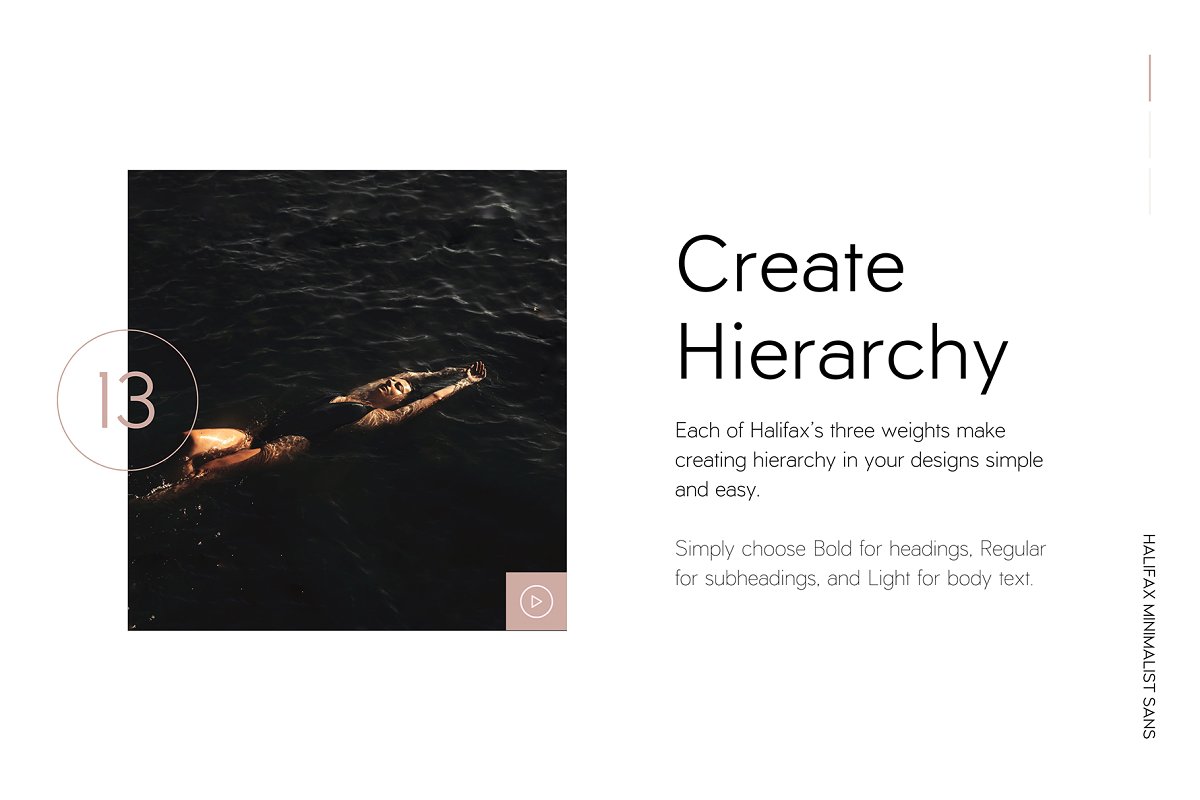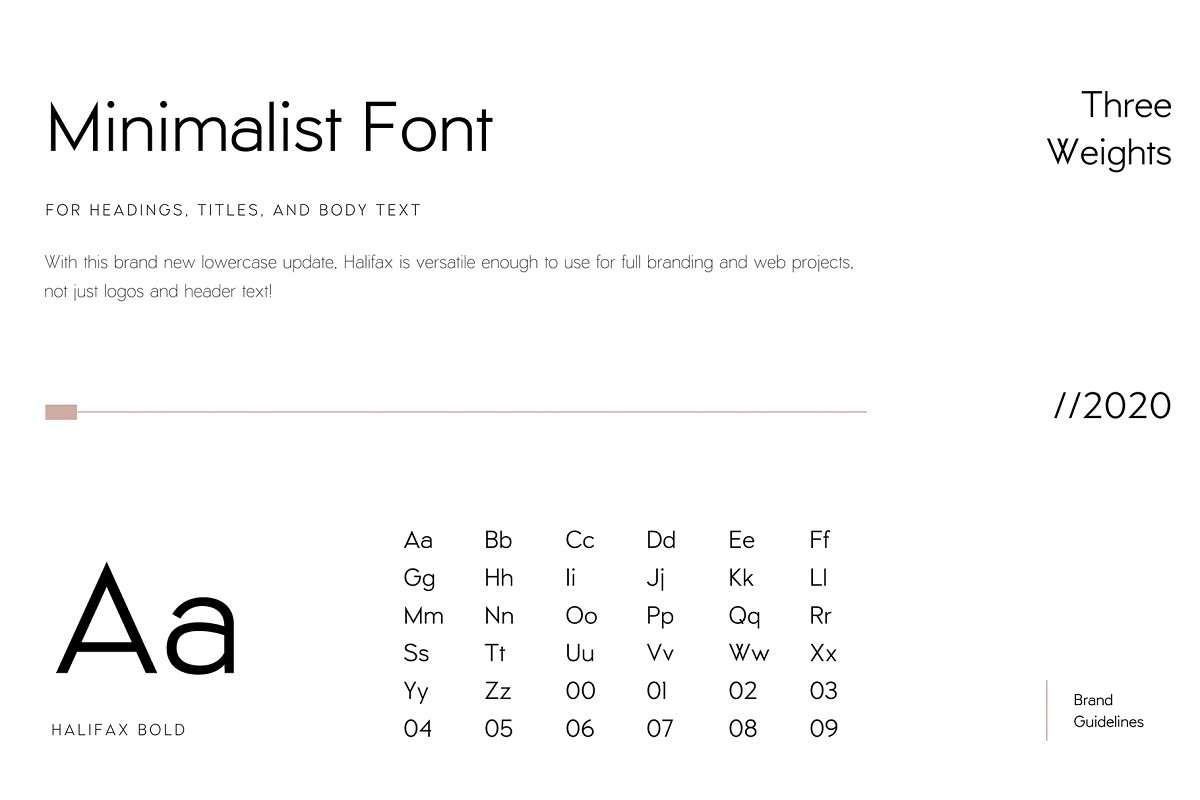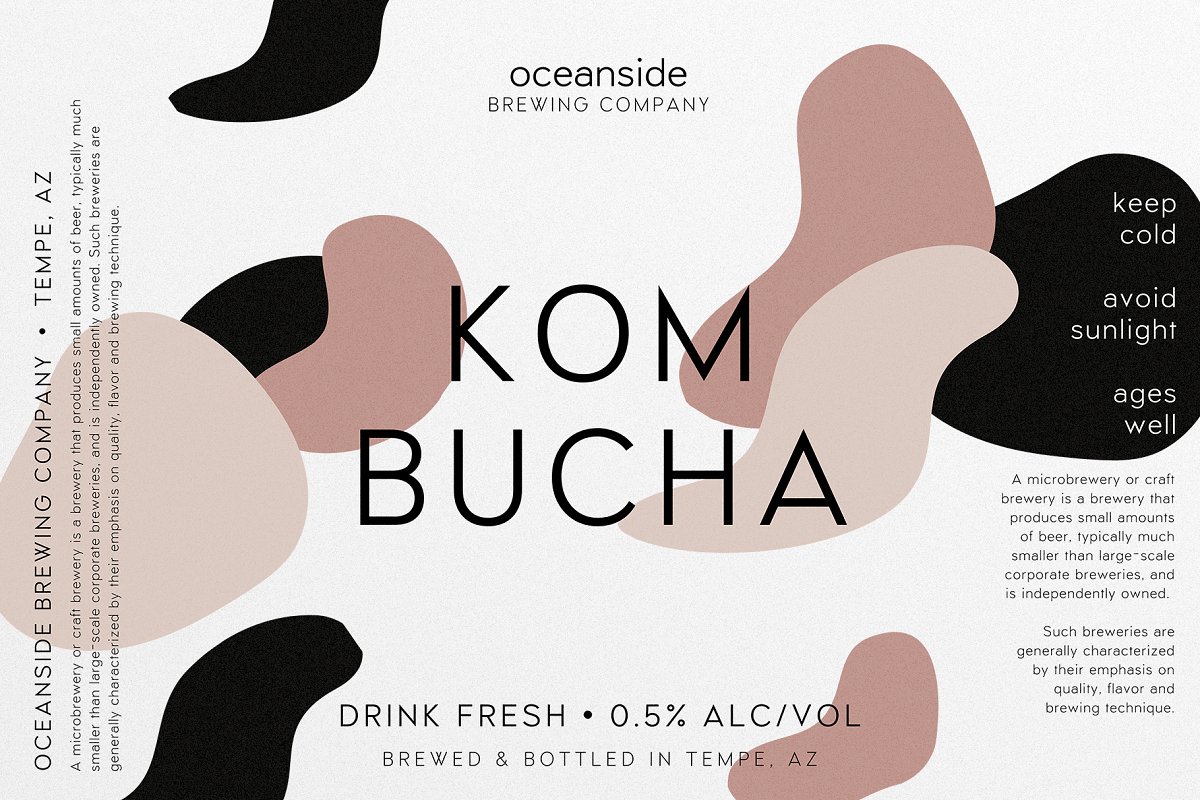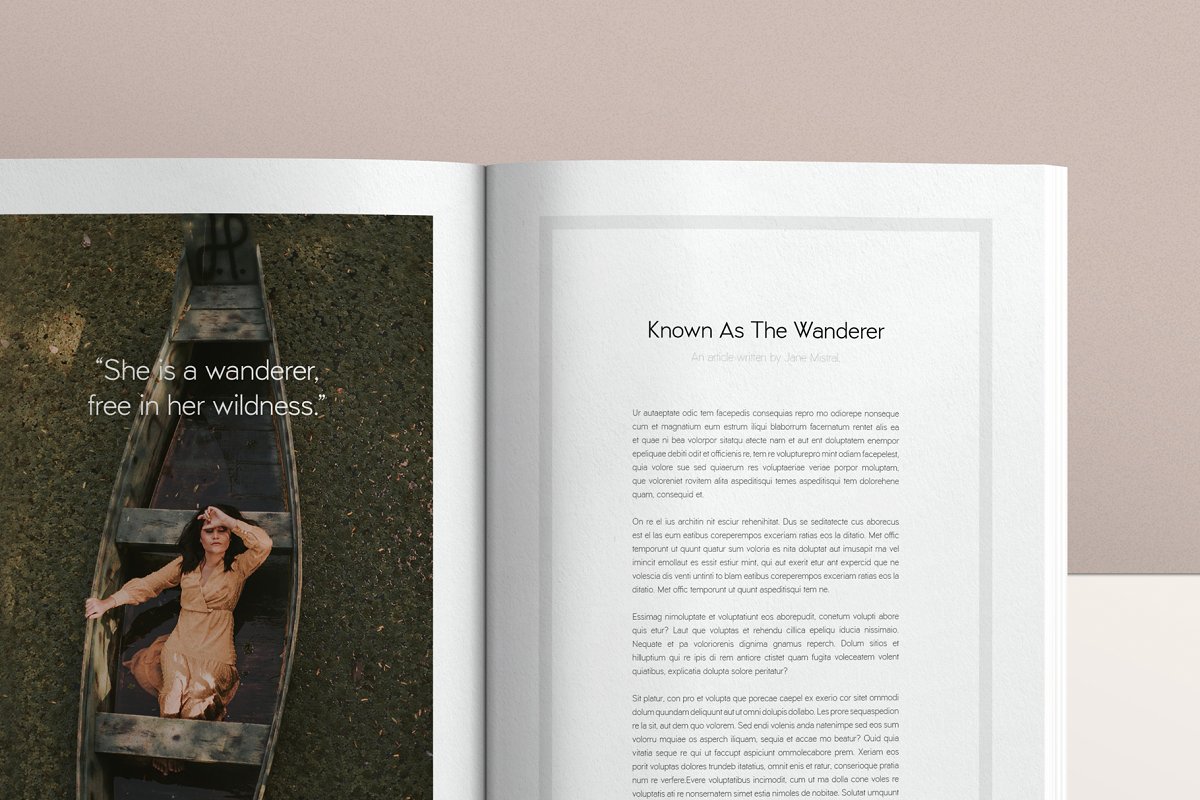
About the Halifax UPDATE A Minimalist Sans Font
NEW UPDATE: Now includes lowercase!Halifax is a minimalist sans serif that comes in three different weights – Thin, Regular, and Bold, Delicate and romantic, Halifax’s clean lines and sharp edges make it a perfect sans for weddings, logos, quotes, print, signage, and more! Plus, the different weights make it a stellar option for branding and web use
I really love this font with tracking set to 220, but it looks really beautiful with condensed spacing as well, Check out the sample images above to see what you can create with Halifax, and test out any sample text you’d like to use in the box below the images!Does the Standard Desktop License cover logo design? Absolutely!! Feel free to use Halifax for as many logos and projects as you want! Read more about finding the right font license here: https://creativemarket